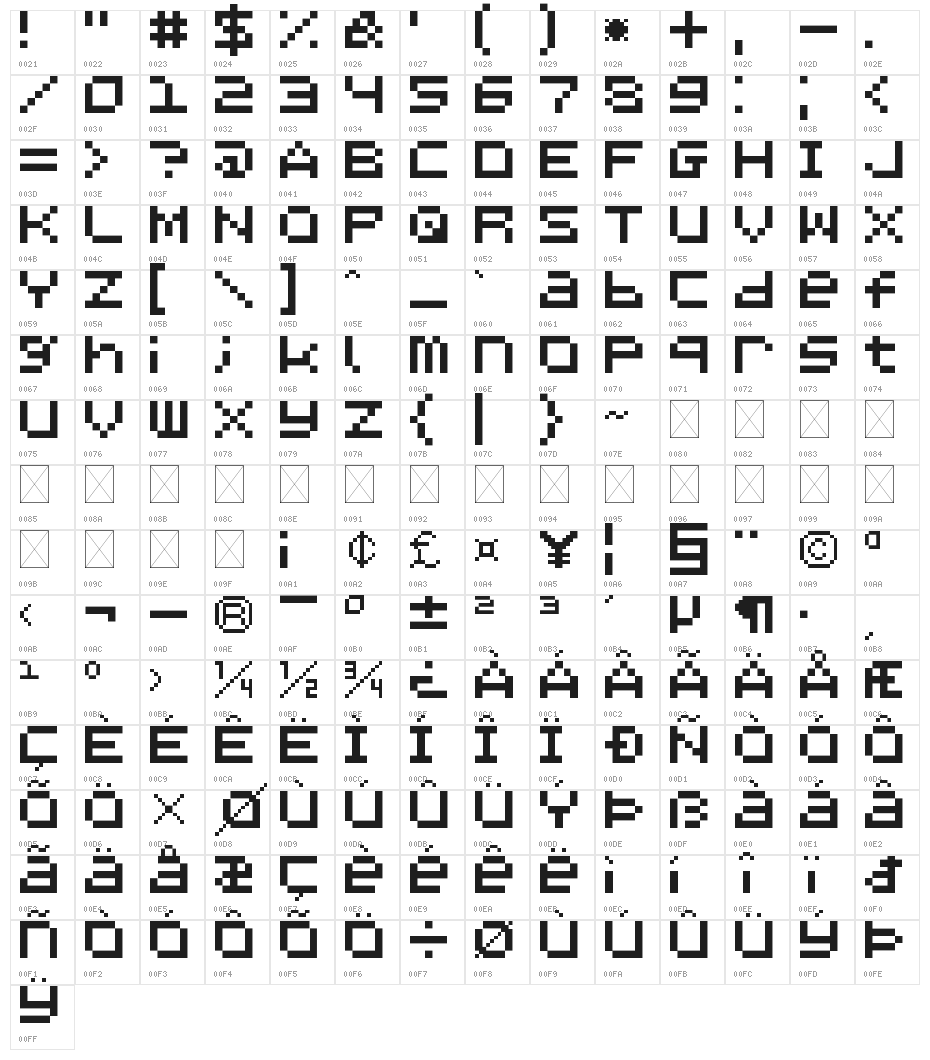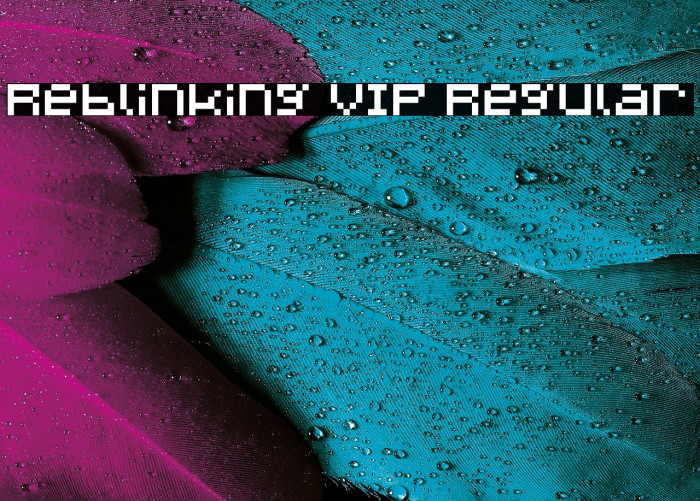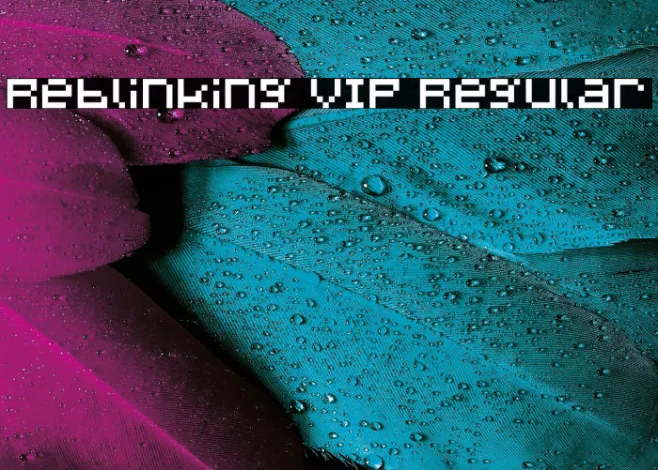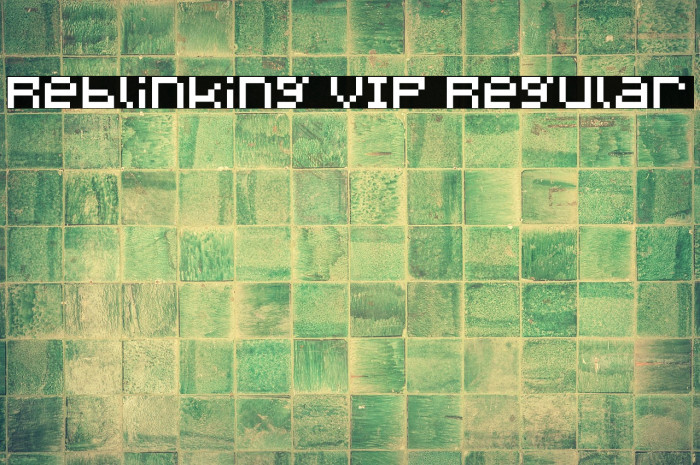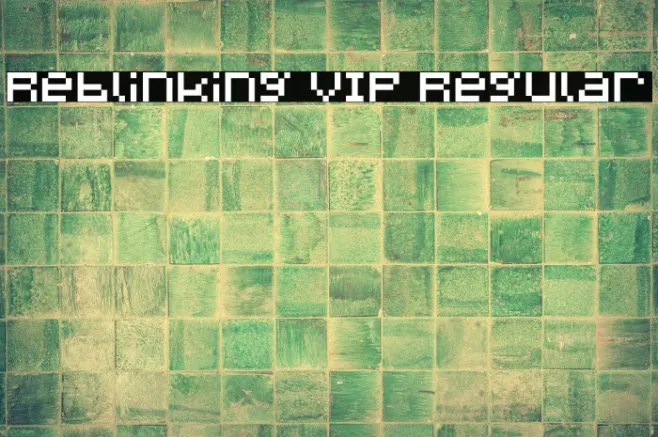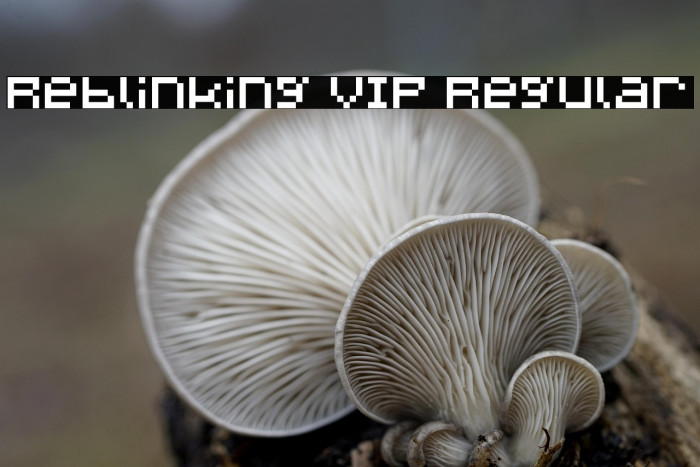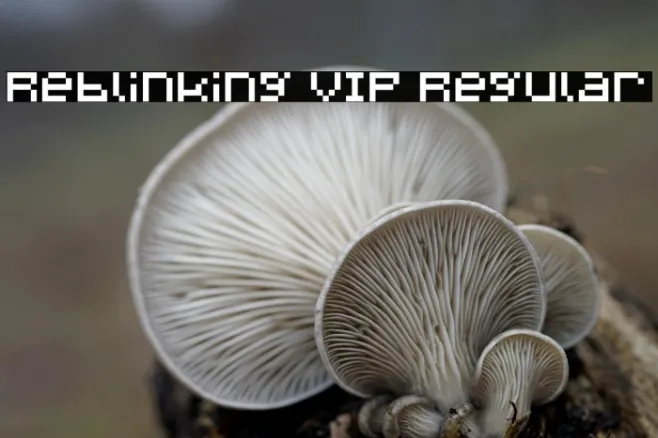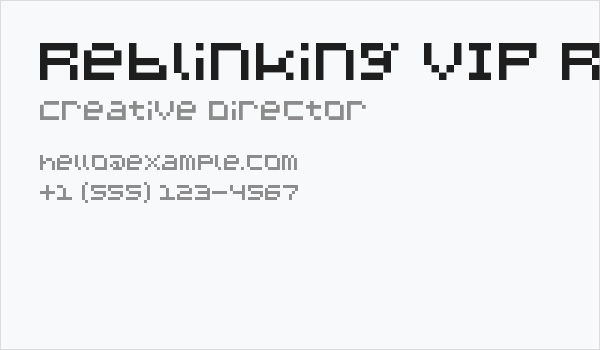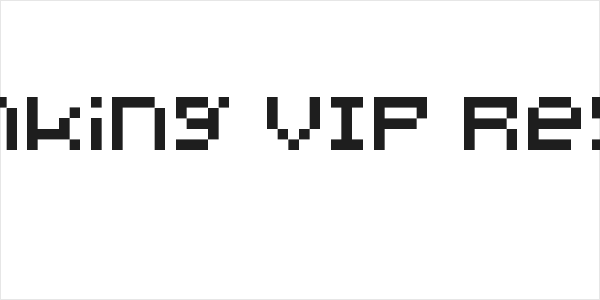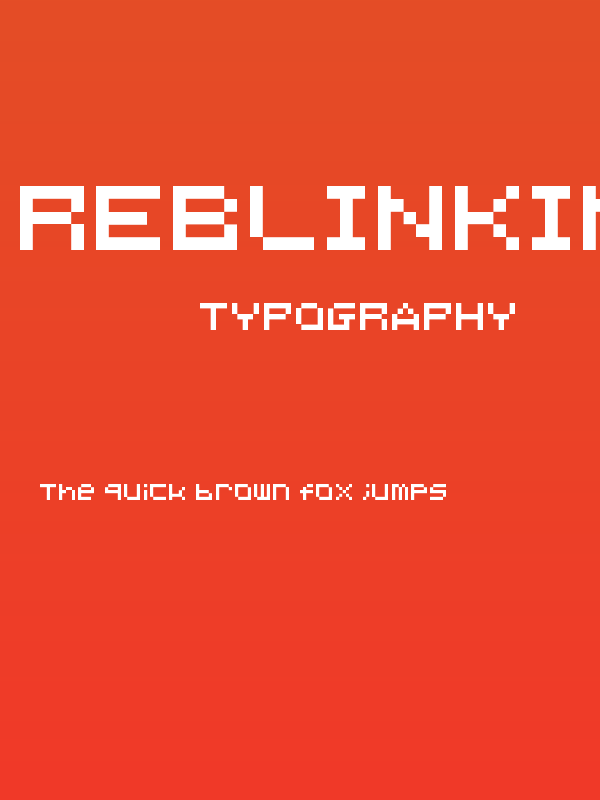
Reblinking VIP Regular Font
Reblinking VIP Regular Description
This font features a pixelated, blocky design reminiscent of early digital displays and video games. Each character is constructed with a uniform grid-like structure, giving it a distinctly retro and digital aesthetic. The uppercase and lowercase letters share a consistent height and width, contributing to a monospaced appearance. The numerals and special characters maintain the same pixelated style, ensuring uniformity across all glyphs. This design is ideal for projects that aim to evoke nostalgia or a tech-inspired theme.
| Use Case | Headlines, Logos, Digital displays |
| Proposed Projects | Ideal for retro video game designs, tech-themed posters, digital art projects, and any creative work that requires a nostalgic digital look. |